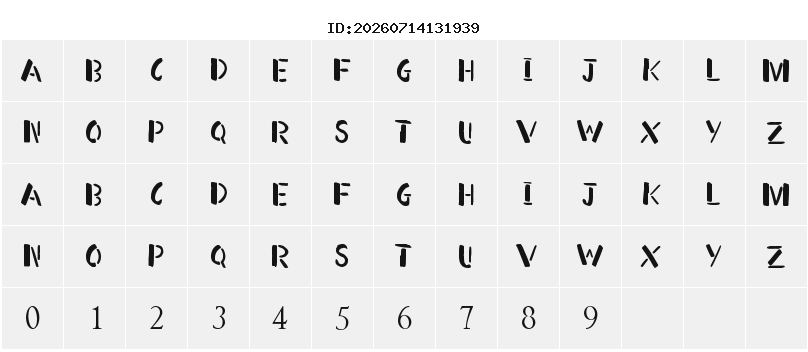
Hard Fox Preview
• Font Name: Hard Fox
• Full Font Name: Hard Fox
About Hard Fox.ttf
Hard Fox.ttf is a modern, elegant sans-serif font designed for ultimate readability and visual harmony. Perfect for branding, headlines, web design, and print materials.